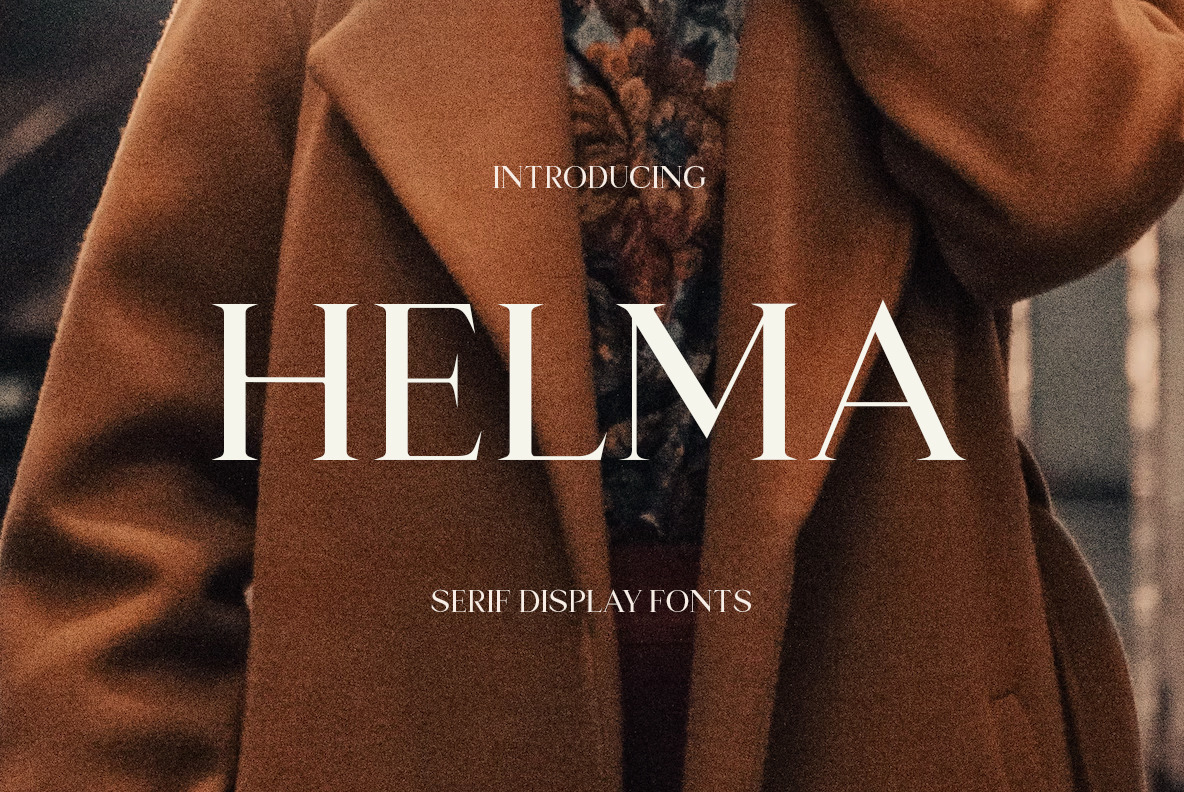
Helma is a display serif typeface that has been expressly designed for high-resolution displays such as digital and print media. With its elegant appearance and perfectly balanced proportions, it is perfect for the title text, corporate branding, and other design applications where a touch of refinement is needed.
- Renowned for its excellent legibility